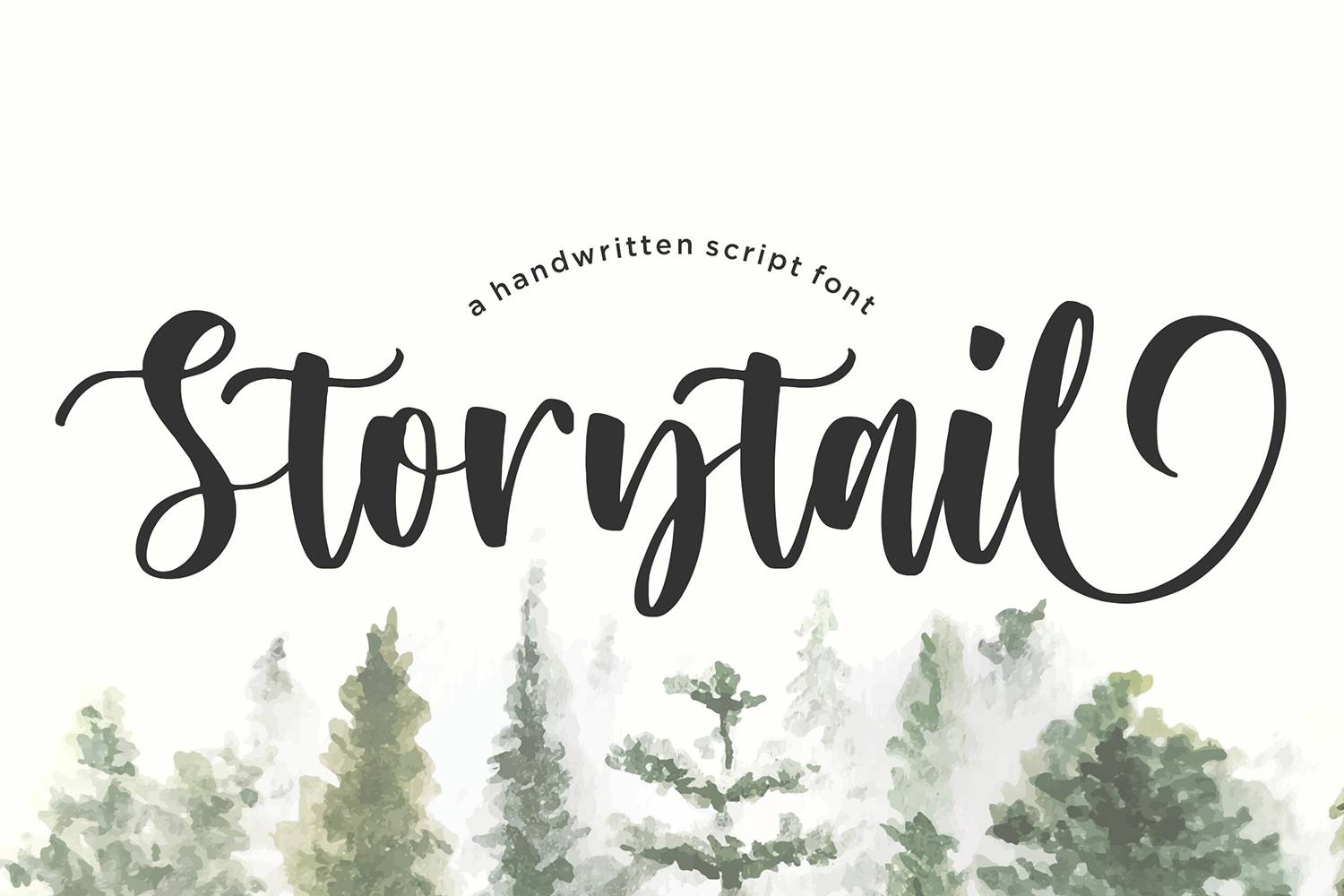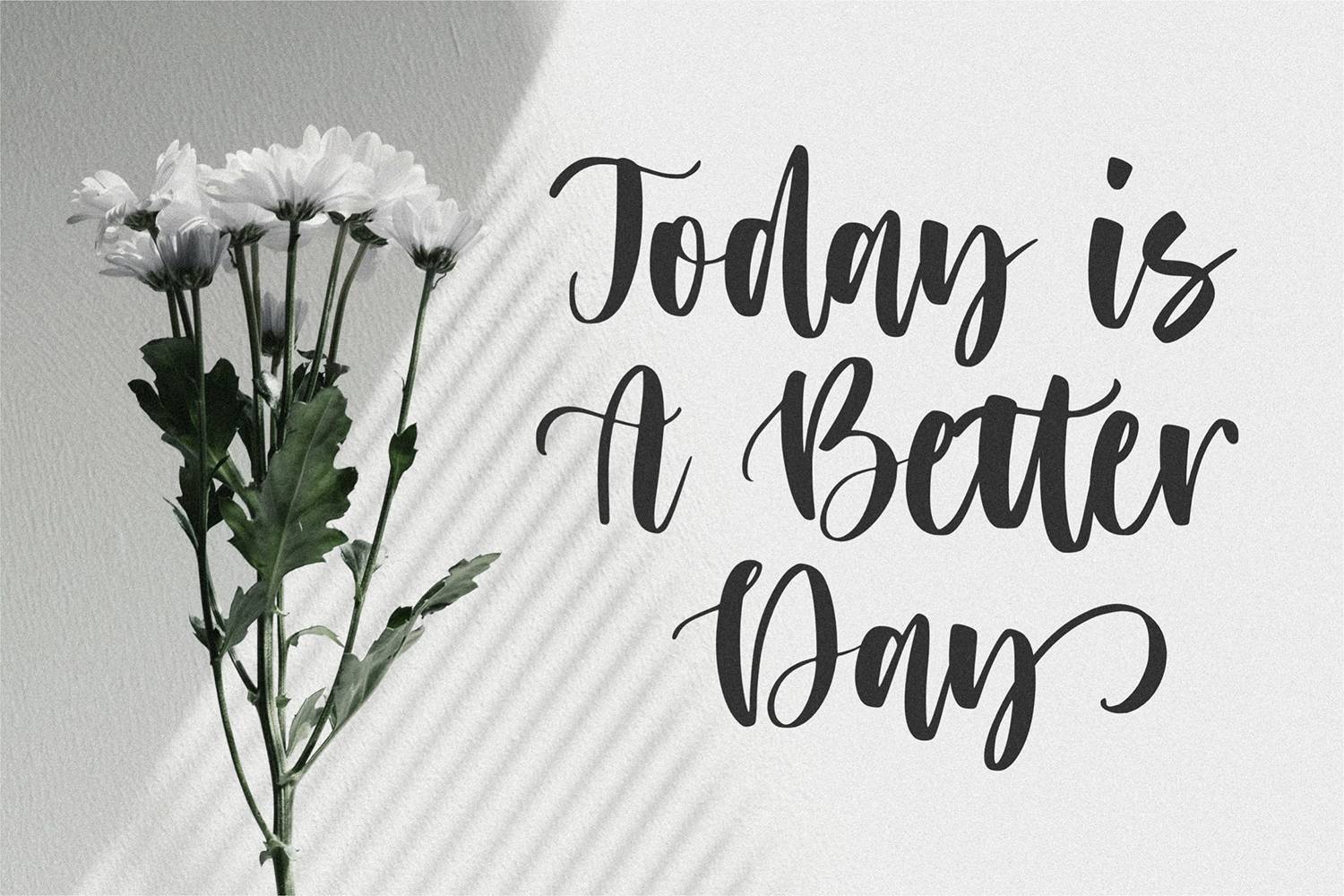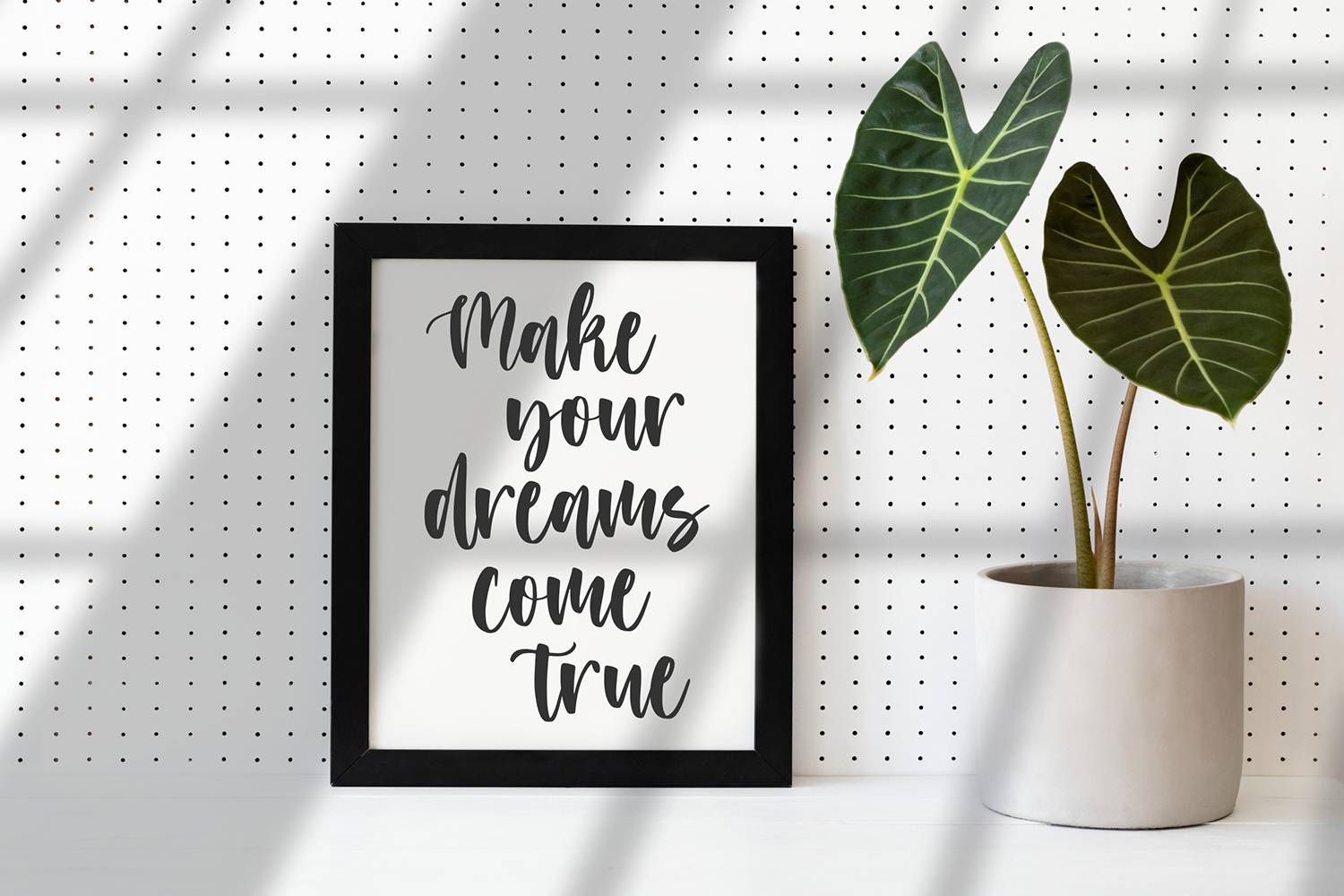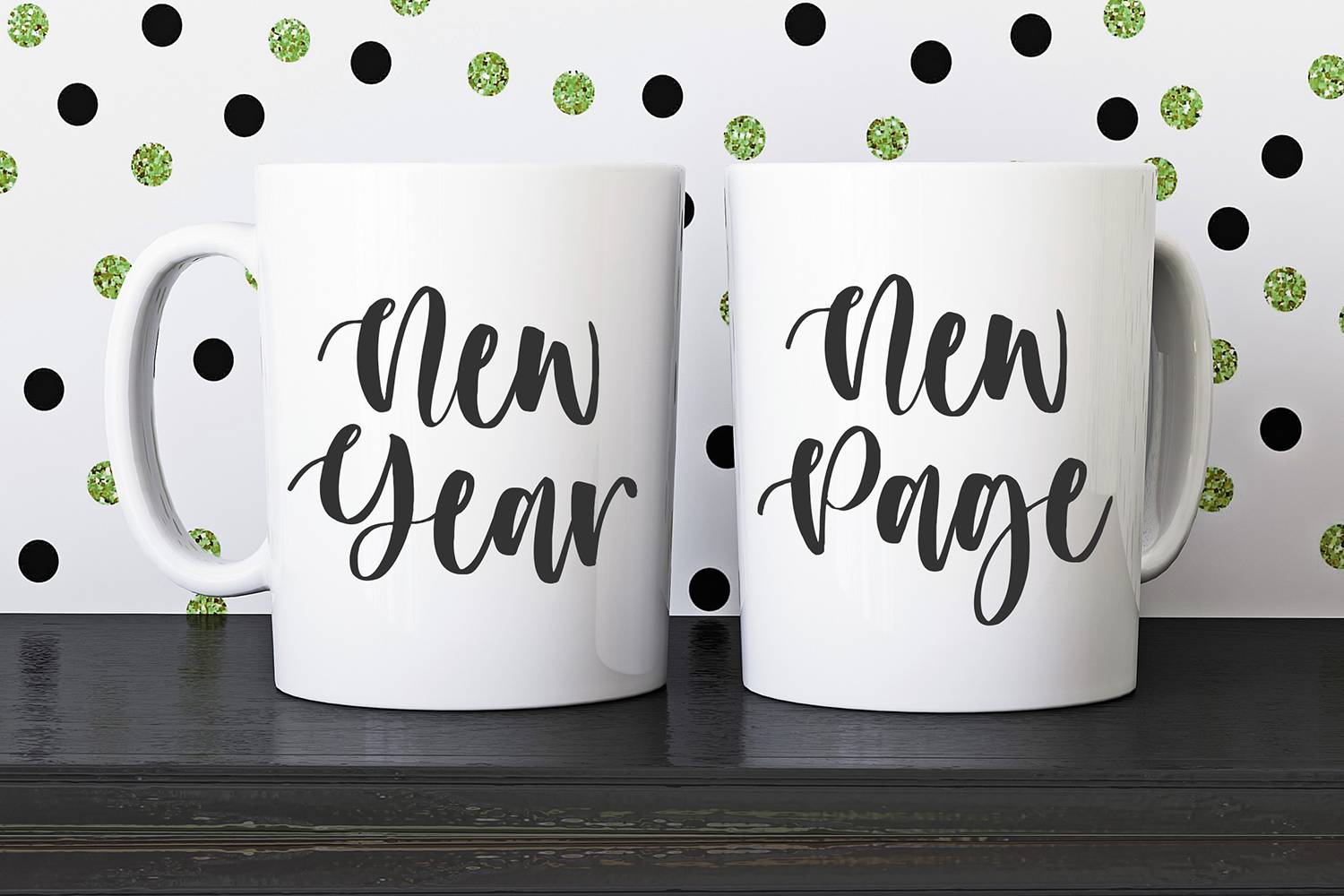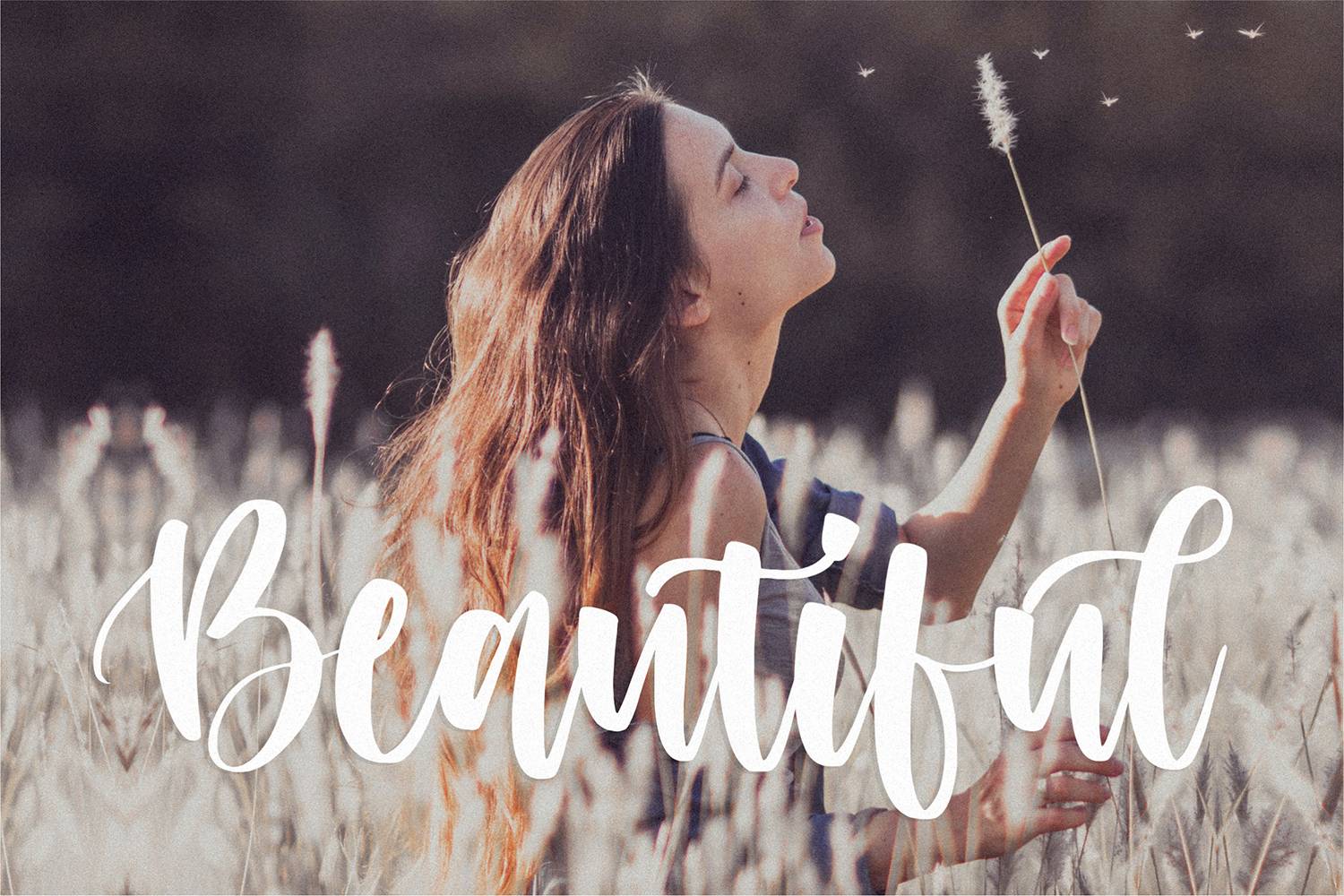
Storytail is an elegant script font with a lively, hand-lettered feel, featuring smooth, flowing strokes and a medium weight that balances readability and charm. Its playful, curly details and natural rhythm make it ideal for creative branding, invitations, and headlines where a personal, artistic touch is desired. This font works beautifully in projects aiming for a warm, inviting, and stylish look.
Storytail Font
About Storytail Font